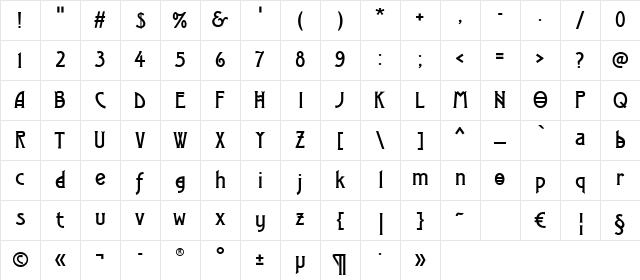
Complete Modernist Two Regular glyph index. Displaying only characters natively supported by Modernist Two Regular font.
Modernist Two is a composed and adaptable typeface that performs quietly and consistently across a wide range of design contexts.